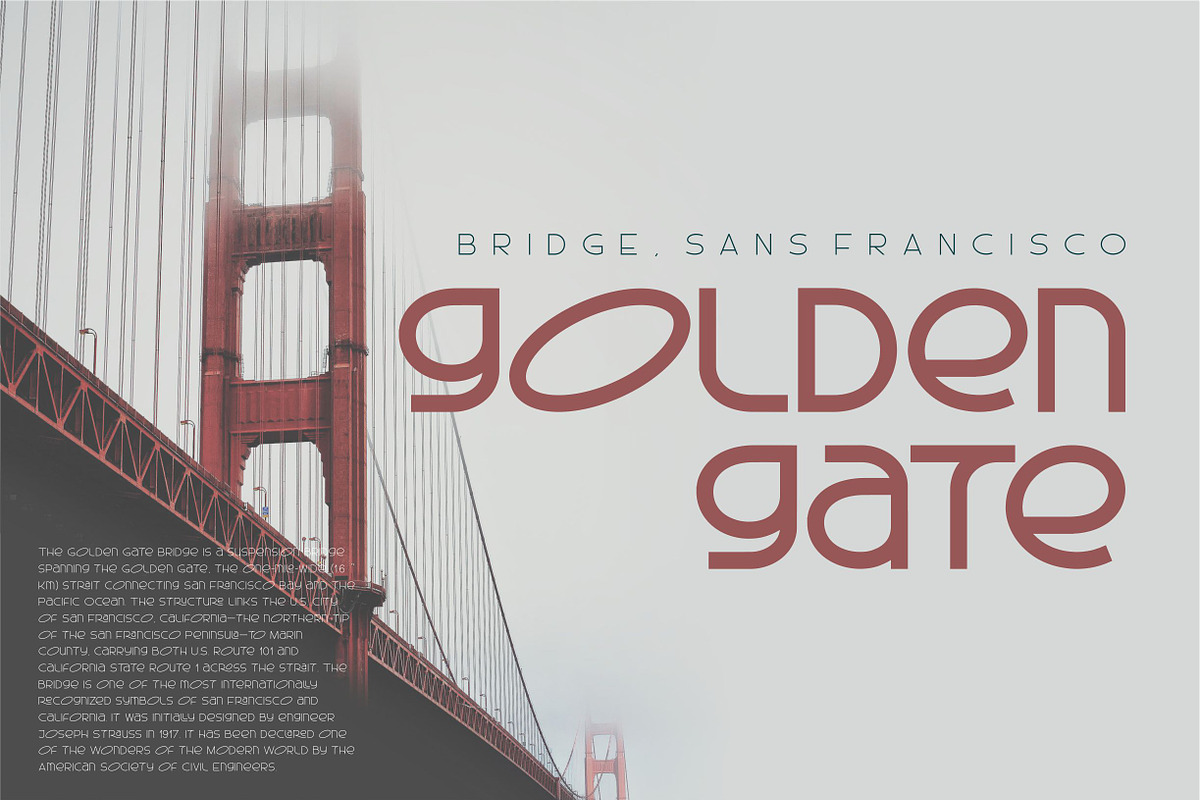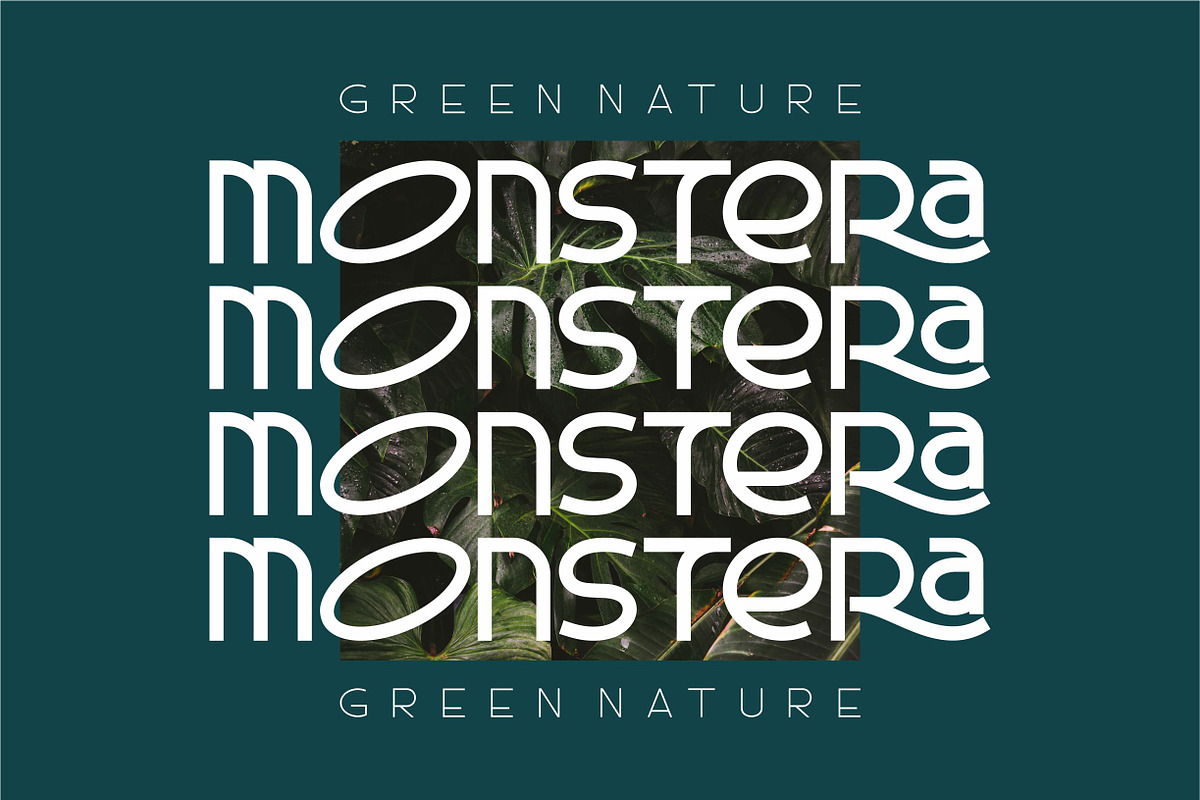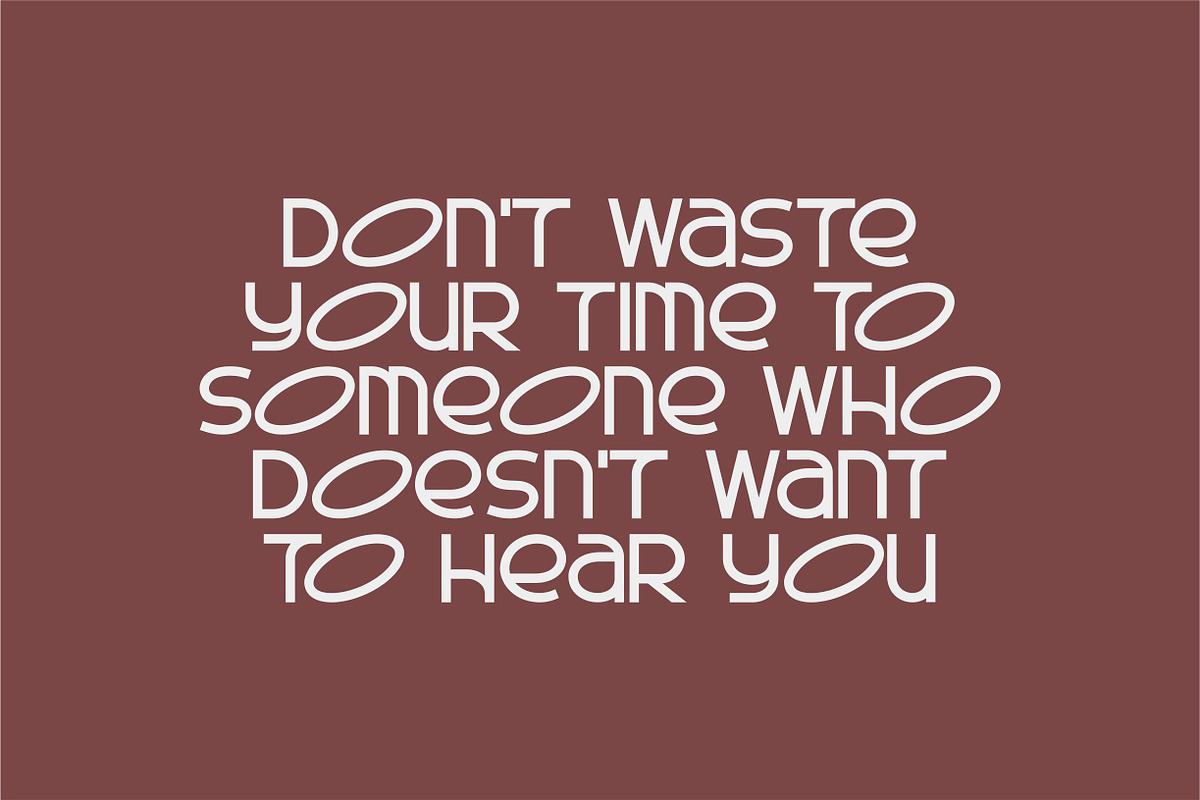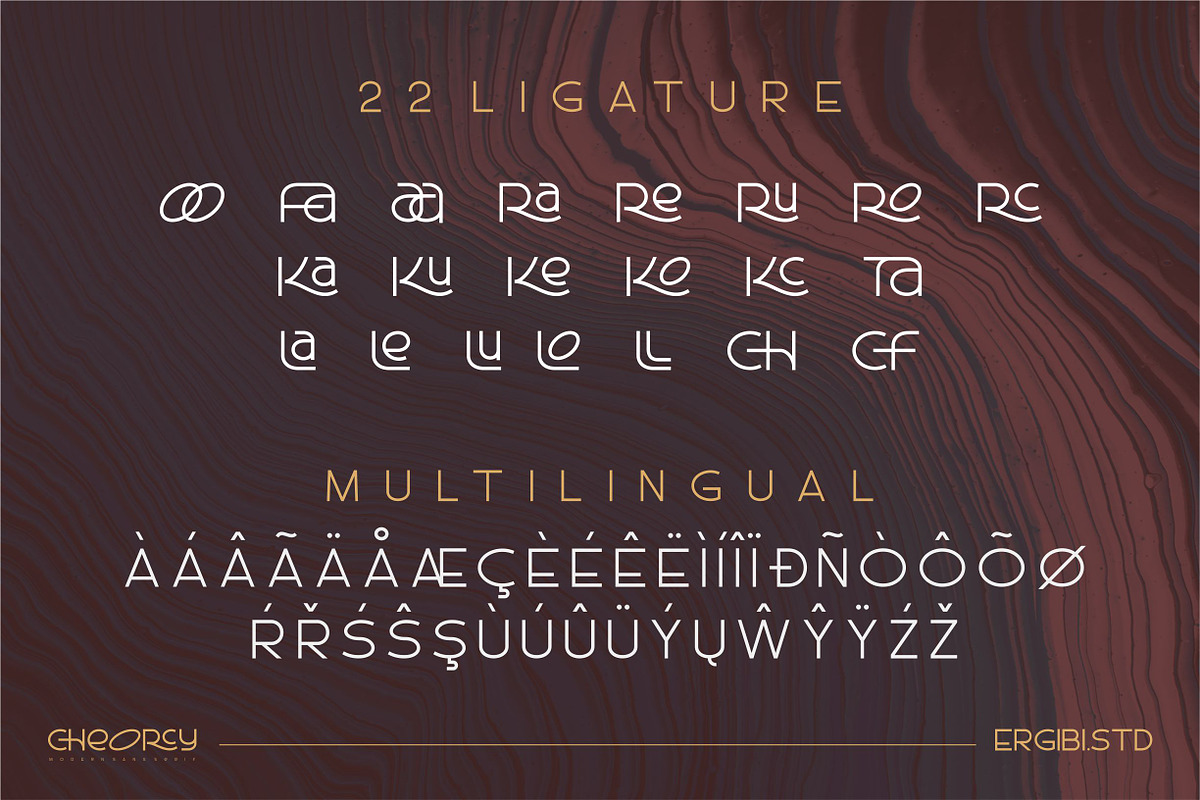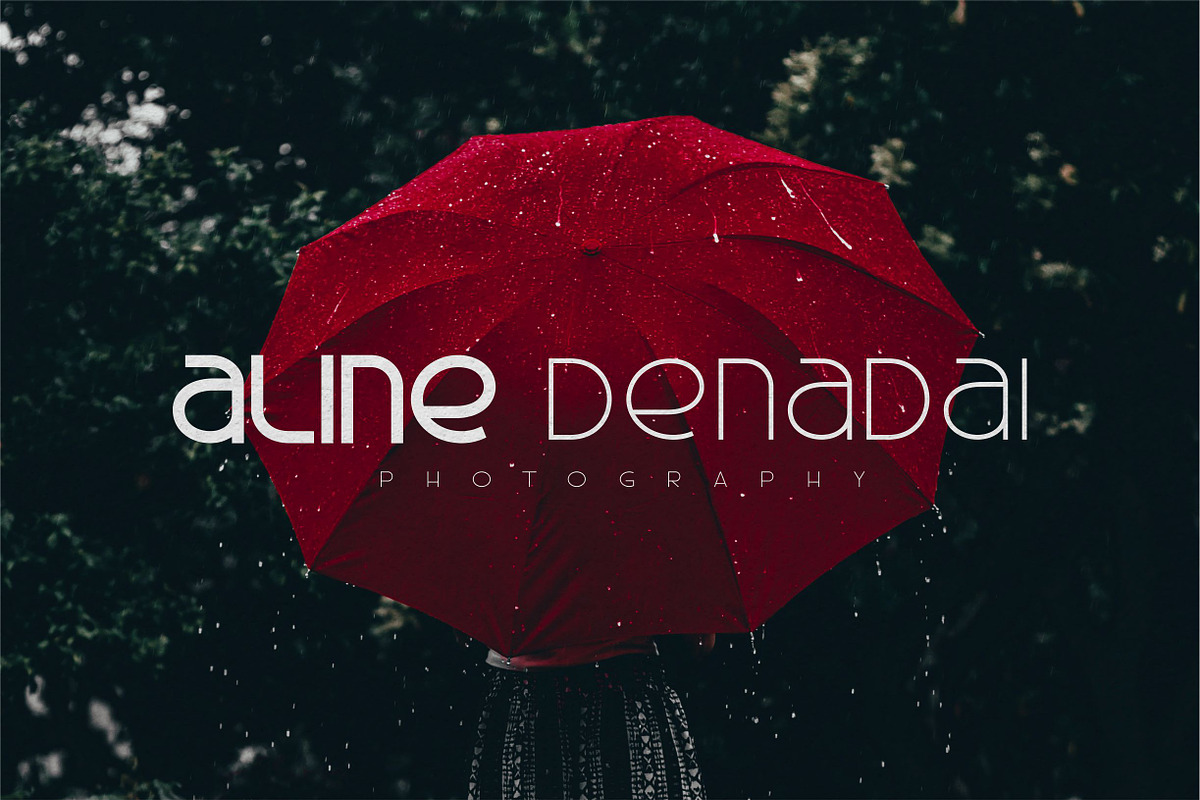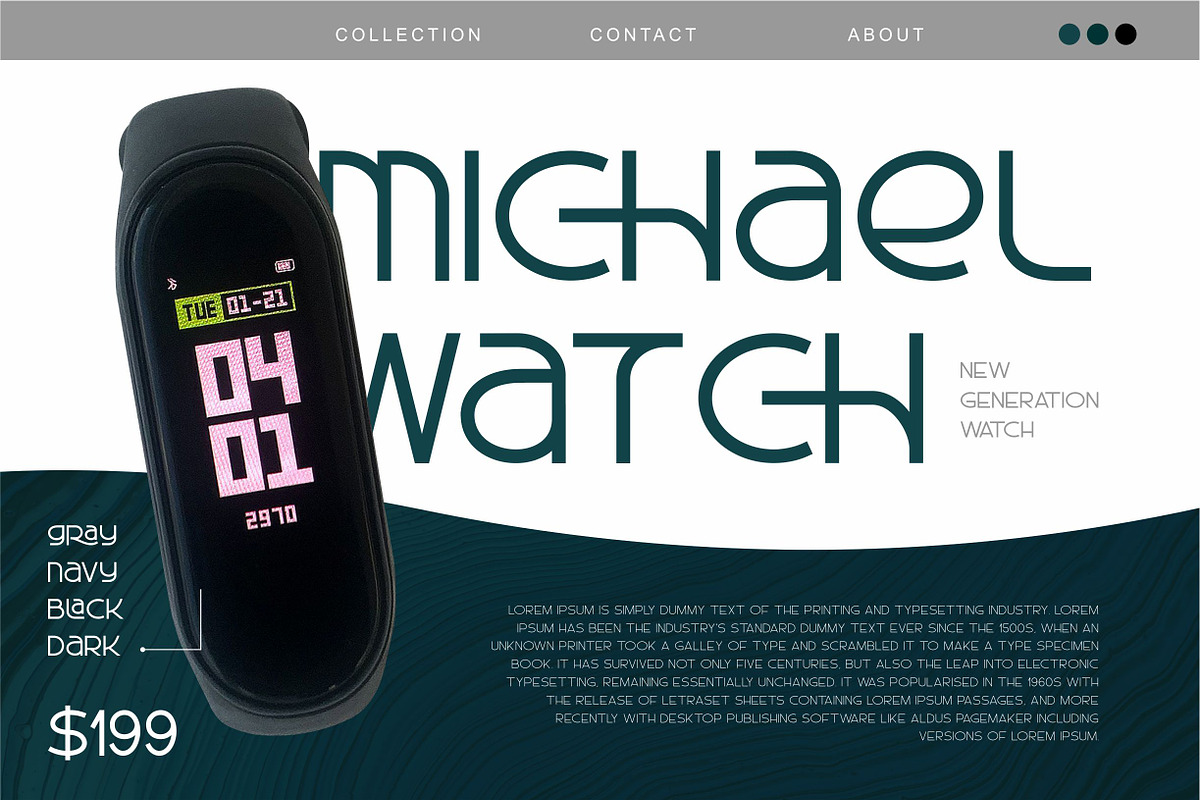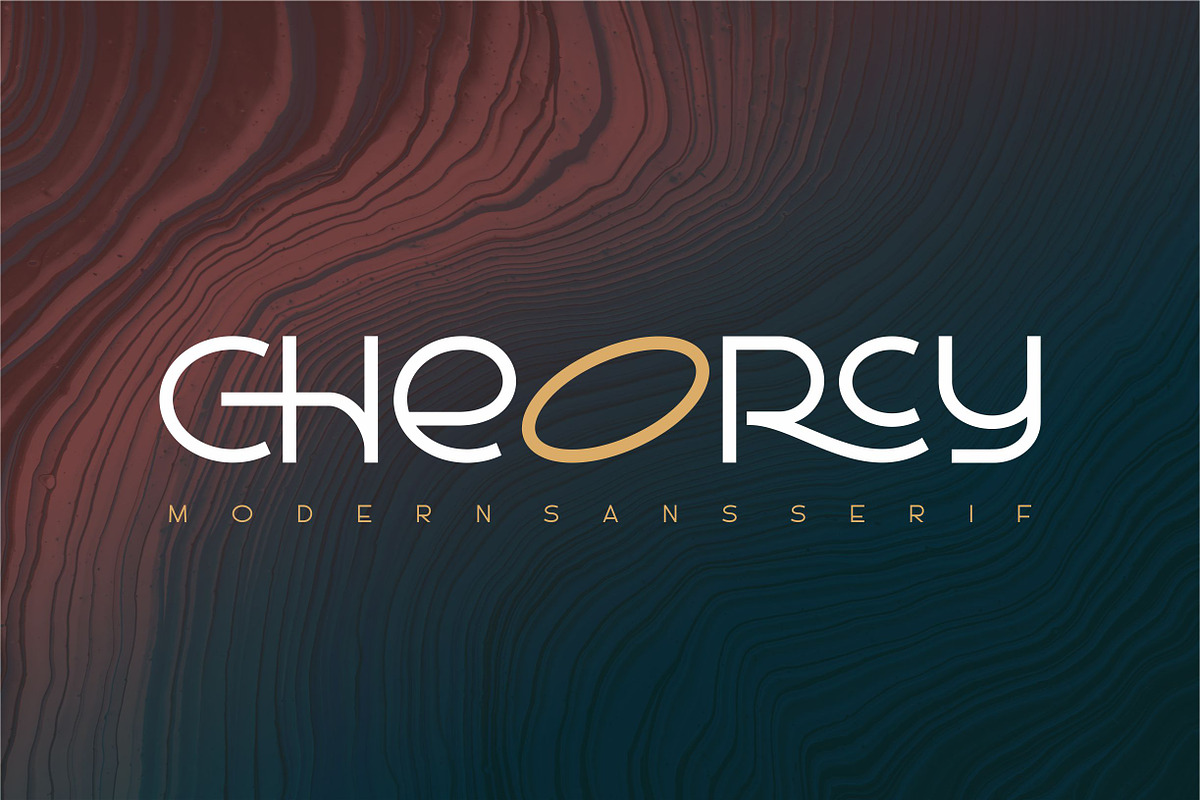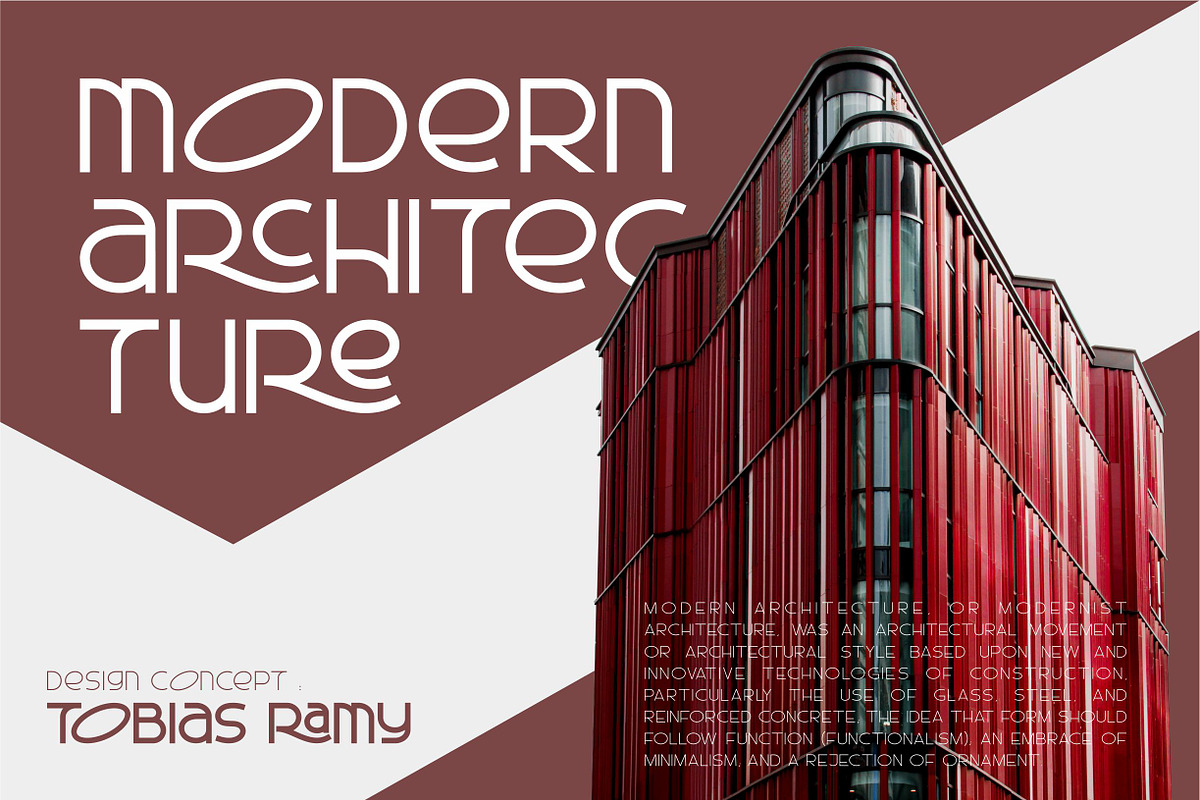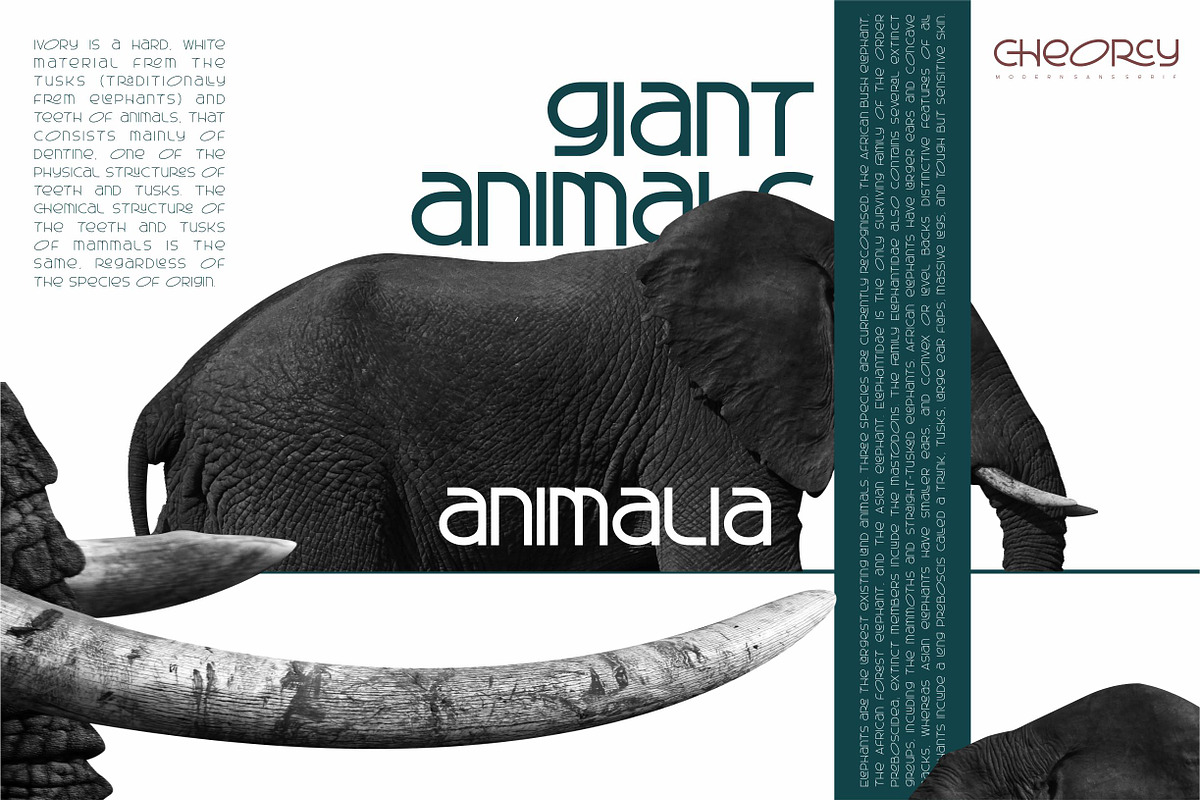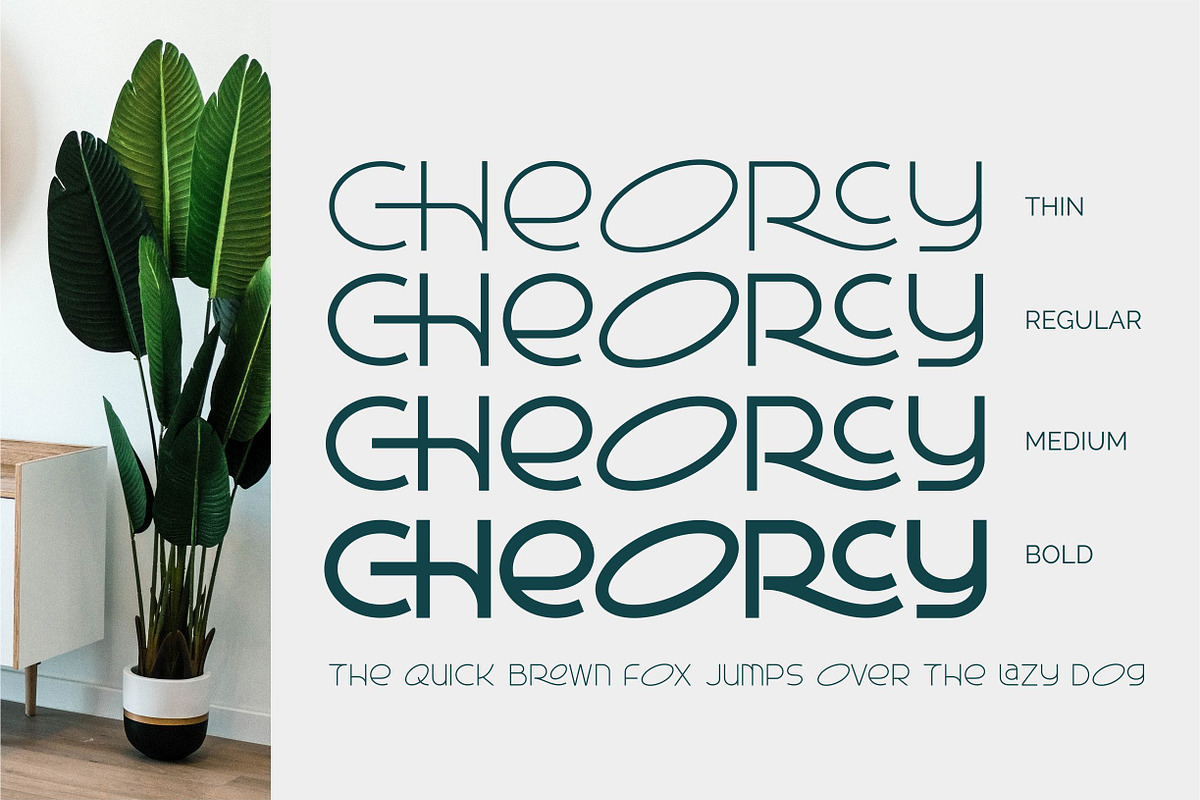
Cheorcy |Modern Sans|
Cheorcy, This font inspired by the famous logo is simple but classy perfect for logotype, apparel, branding, packaging, very good for combining your design work with a clear line with several different weights that are very comfortable in the design area you are easy to read and as title, magazine, label, advertising and anything elegant. This typeface is comes in uppercase, lowercase, punctuations, symbols & numerals, ligature. Also support multilingual